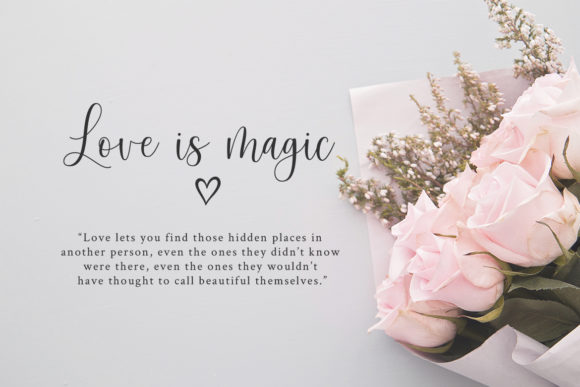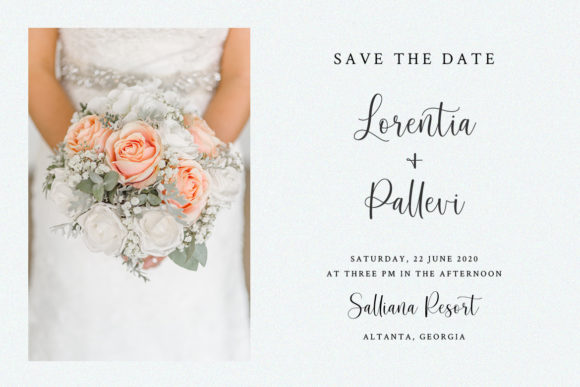
Hernitta Font
db-ku.com - Script & Handwritten -- Hernitta is a beautiful & modern calligraphy font with many alternative styles. It will add a romantic touch to any crafting project!